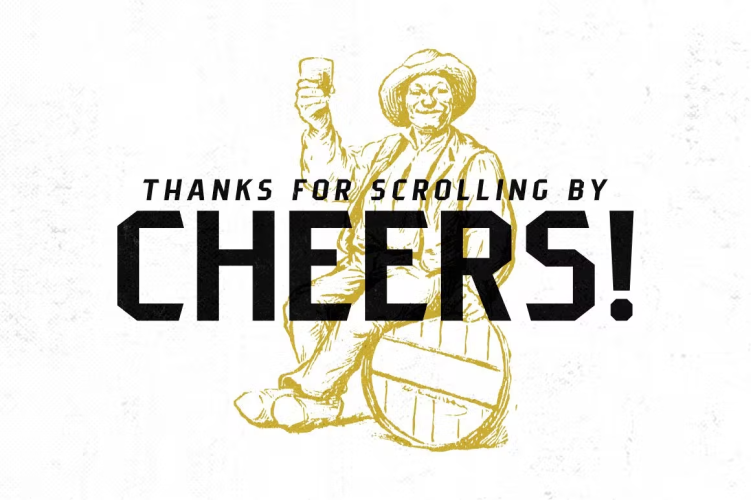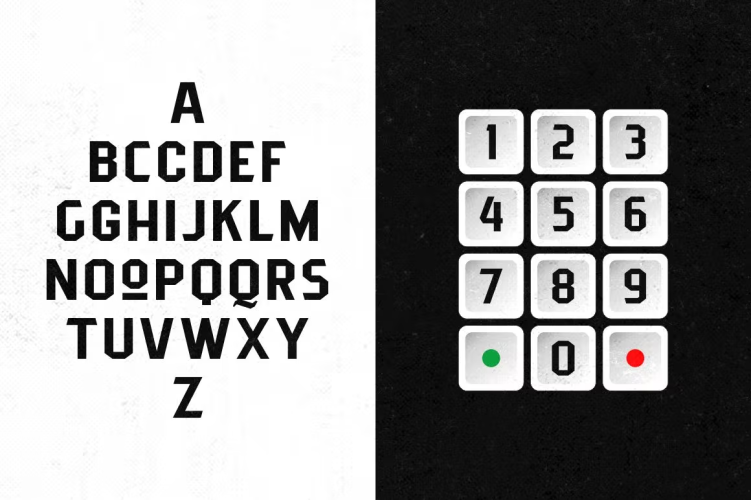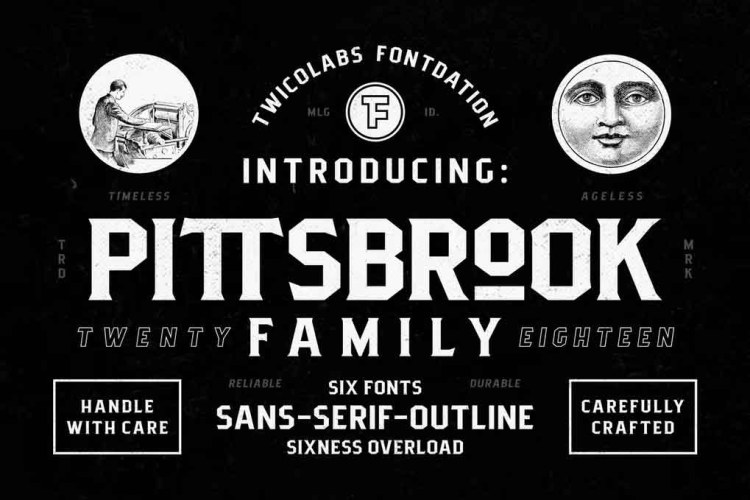
Pittsbrook Family Font
Pittsbrook Family, a pack of classic typefaces that inspired by the letters used in old advertisement and packagings. Its rigid shape gives you strong, sharp and blocky feelings, no curves were harmed in the making of these typefaces.
Comes in three styles; Sans, Serif and Outline, all of them are consistently mouse-crafted characters, we spent a lot of attention to every details. Suits best for any classic/vintage design project, such as E-Sport logo, liquor/food label, packaging, headline, space-filler, logotype, typographic quote writings, etc.
Where Pittsbrook Family Font works best
Reports, white papers and book interiors hold the eye longer when the text face has real serifs; Pittsbrook Family Font keeps that rhythm without looking old-fashioned.
Food, spirits and cosmetics brands lean on serif wordmarks to suggest age and care. Pittsbrook Family Font gives that signal at wordmark size.
Set Pittsbrook Family Font for the body of an award or a diploma and keep the recipient name in a script; the pairing is what makes a document feel official.
What kind of work does Pittsbrook Family Font suit?